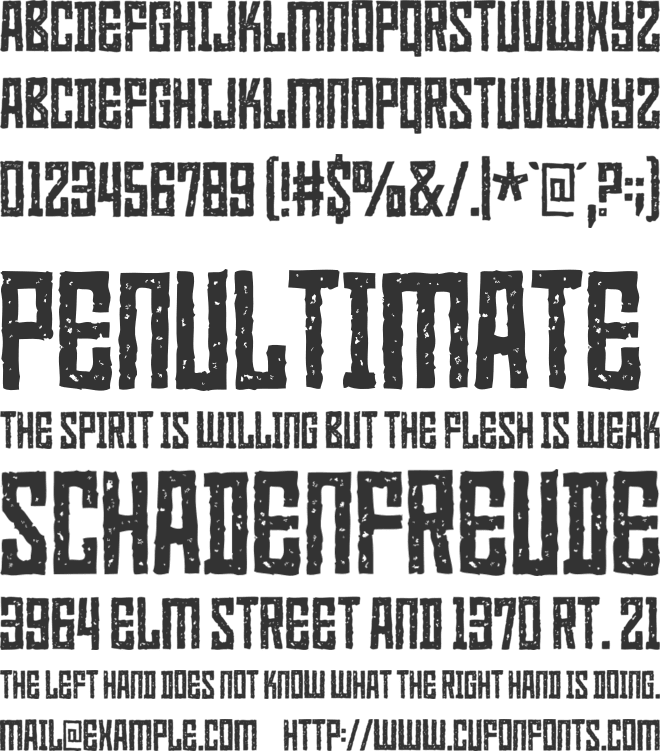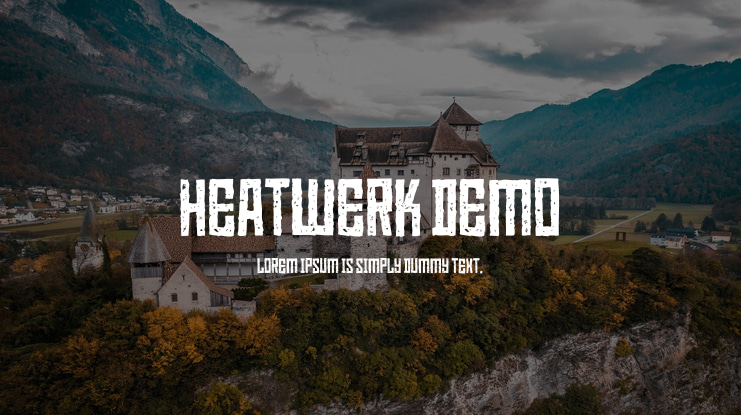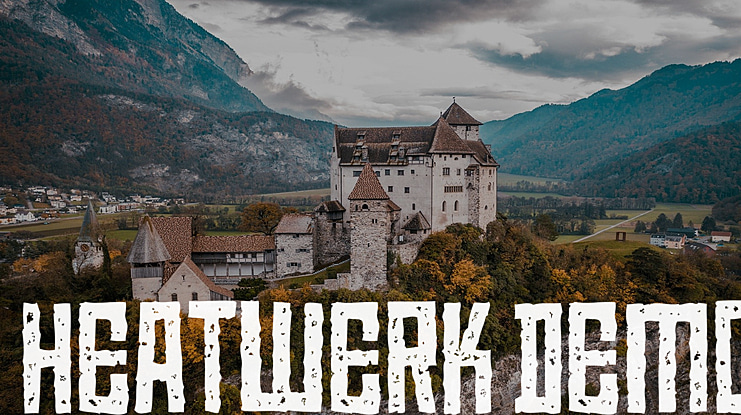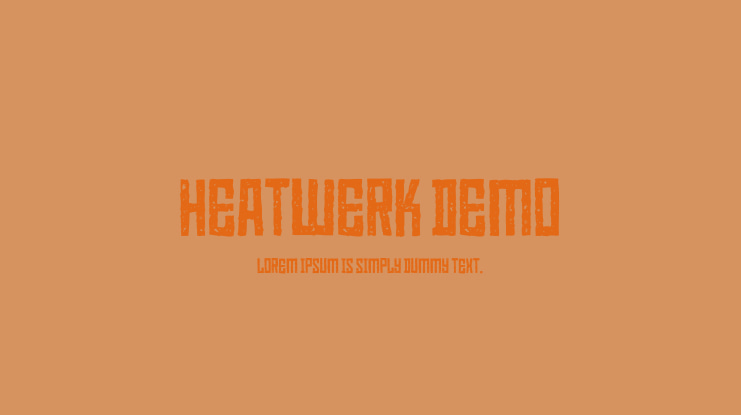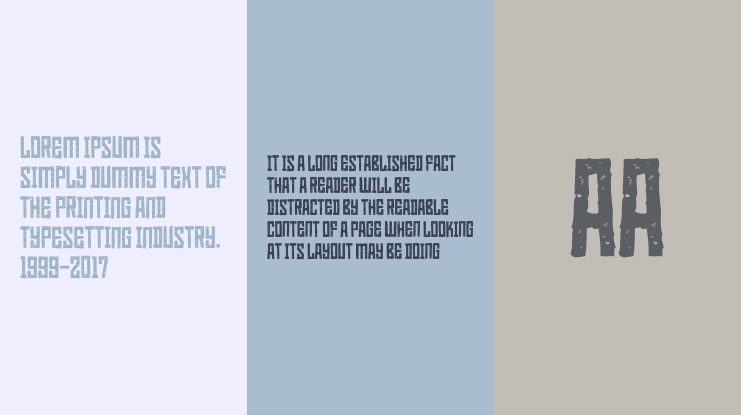
Heatwerk DEMO Font
Heatwerk is square and steady with a fresh sprinkle of grunge! The shareware version comes in 3 different versions: Regular, Black and Dirt - combine Black and Dirt to get the grunge color effect you like, or just use the regular version. Anyway, all versions comes with 400+ ligatures! Enough to make your headlines or massive text look like authentic worn letters!